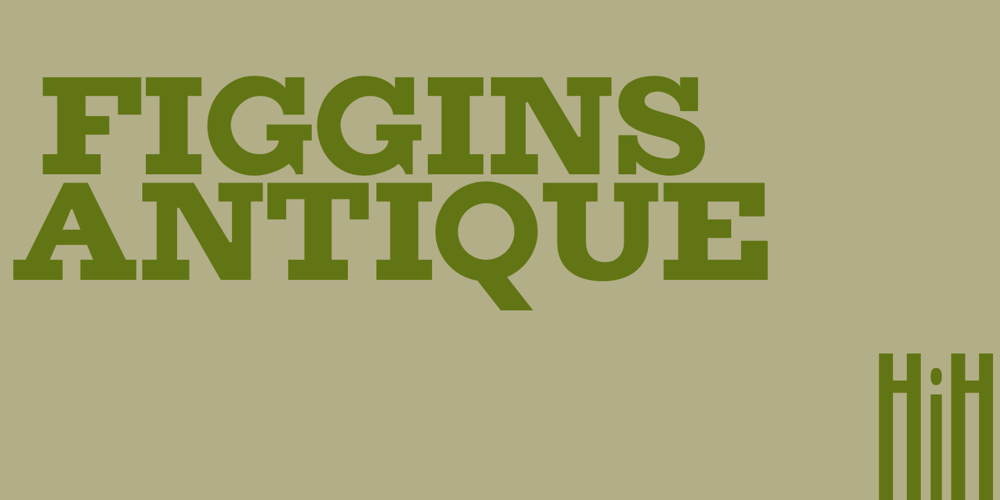
Figgins Antique Font Family was designed by Vincent Figgins and published by HiH. Figgins Antique contains 1 styles and family package options. “Hey, look at me!” cried the new advertising typefaces. With the nineteenth century and the industrial revolution came an esthetic revolution in type design. Brash, loud, fat display faces elbowed their way into the crowd of book faces, demanding attention. Those who admired traditional book types harumphed and complained. Robert Thorne had fired the opening round with his Fatface. With the cutting of Figgins Antique, the battle was well and truly joined. Job printing came into its own and it seemed like everything changed. The world of printing had been turned upside down and the gentile book-type aficionados recoiled in horror much as the rural landed gentry recoiled at the upstart middle class shopkeepers and manufacturers. William Savage, approvingly quoted by Daniel Berkeley Updike over a hundred years later, described the new display faces as “a barbarous extreme.” These were exciting times. According to Geoffrey Dowding in his An Introduction To The History Of Printing Types, “The types which we know by the name of Egyptian were first shown by Vincent Figgins in his specimen book of 1815, under the name Antique.” Of course, dating the design is not quite as simple as that. Nicolete Gray points out that Figgins used the same “1815” title page on his specimen books from 1815 to 1821, adding pages as needed without regard to archival issues. As a result, there are different versions of the 1815 specimen book. In those copies that include the new Antique, that specific specimen is printed on paper with an 1817 watermark. The design is dated by the 1817 watermark rather than the 1815 title page. Figgins Antique ML is an all-cap font. This typeface is for bold statements. Don’t waste it on wimpy whispers of hesitant whimsies. And please don’t use it for extended text — it will only give someone a headache. Think boldly. Use it boldly. Set it tight. Go ahead and run the serifs together. Solid and stolid, this face is very, very English. FIGGINS ANTIQIE ML represents a major extension of the original release, with the following changes: 1. Added glyphs for the 1250 Central Europe, the 1252 Turkish and the 1257 Baltic Code Pages. Added glyphs to complete standard 1252 Western Europe Code Page. Special glyphs relocated and assigned Unicode codepoints, some in Private Use area. Total of 331 glyphs. 2. Added OpenType GSUB layout features: liga and pnum. 3. Added 86 kerning pairs. 4. Revised vertical metrics for improved cross-platform line spacing. 5. Redesigned mathamatical operators. 6. Included of both tabular (standard) & proportional numbers (optional). 7. Refined various glyph outlines.